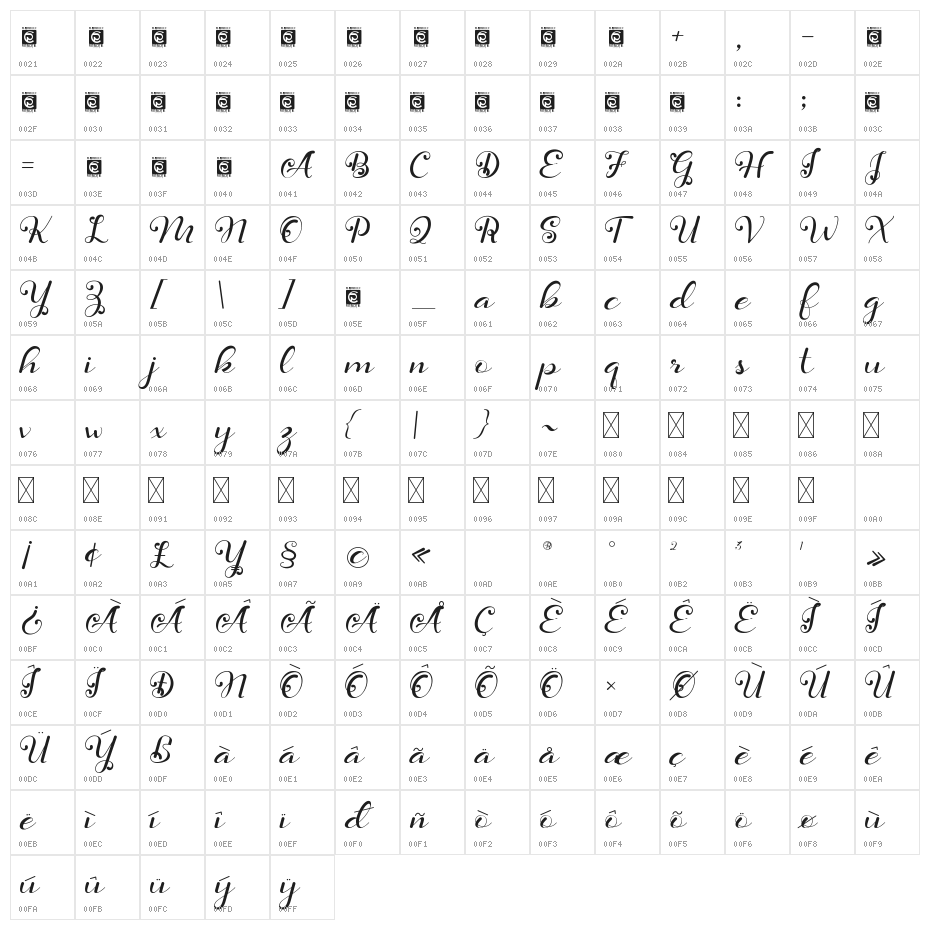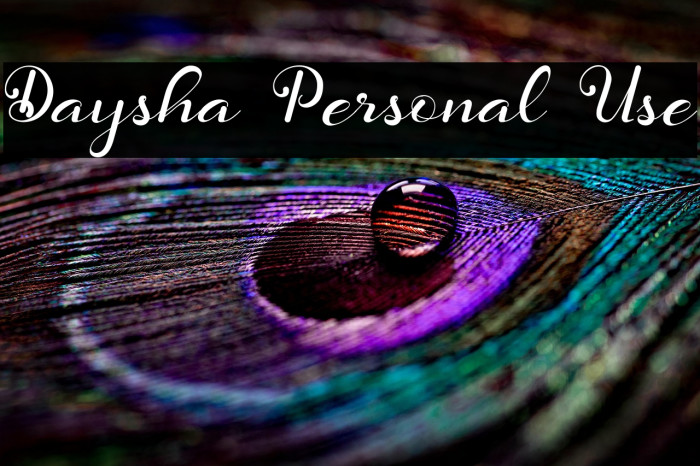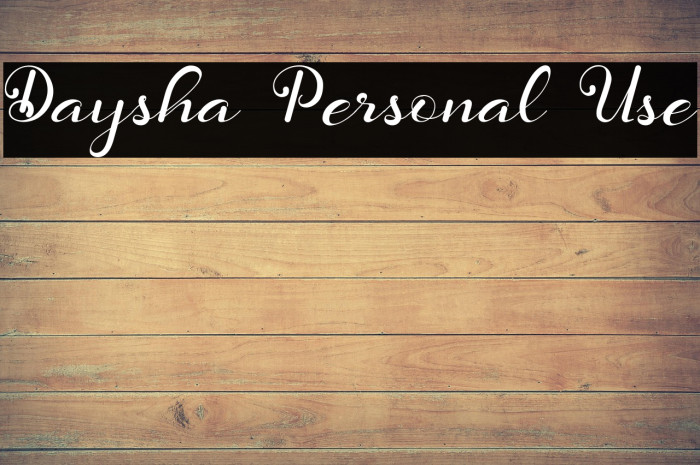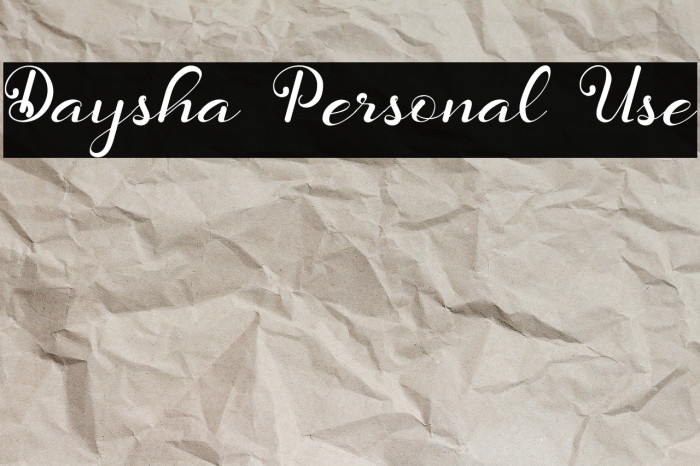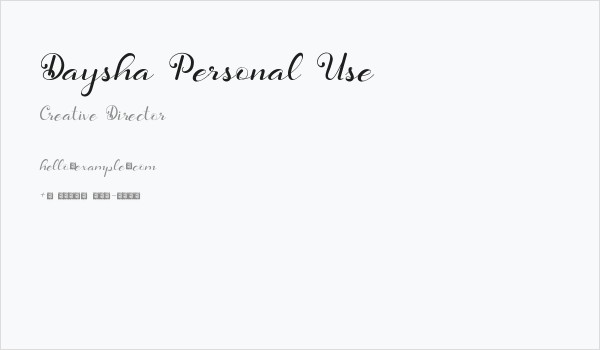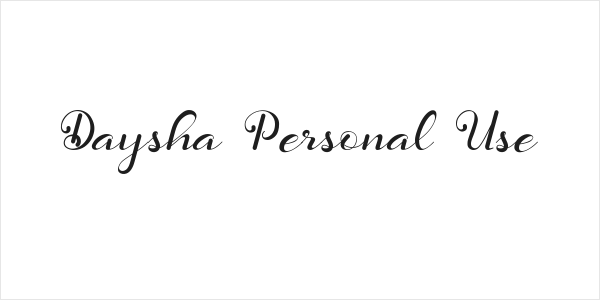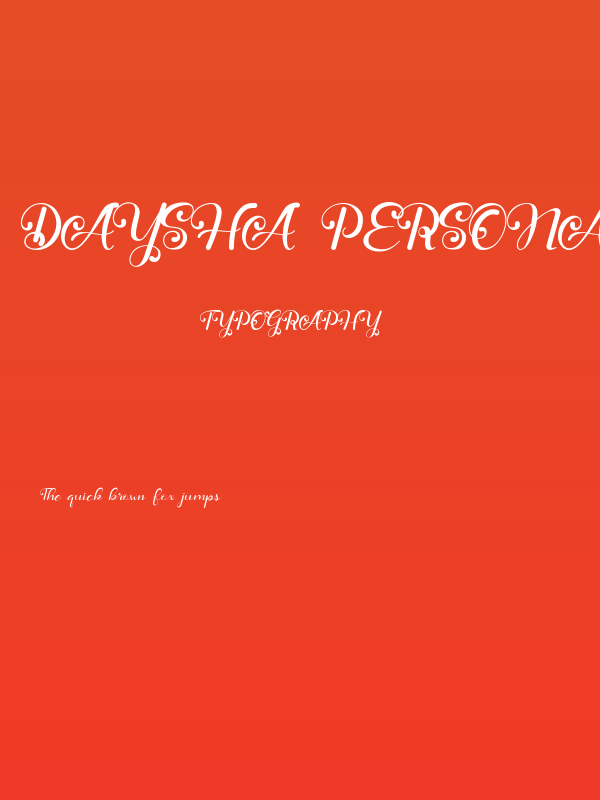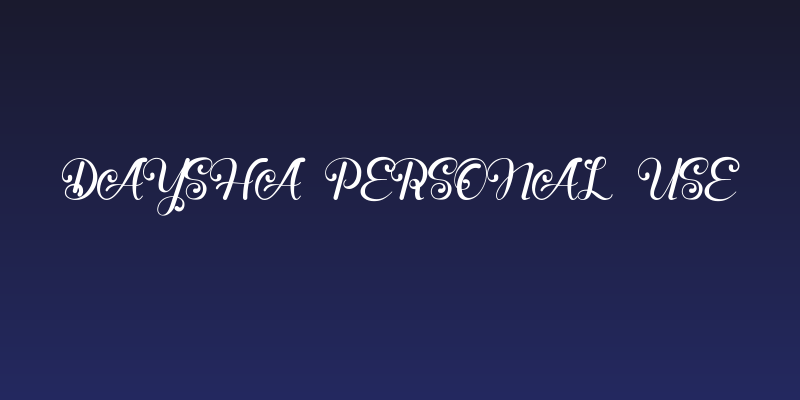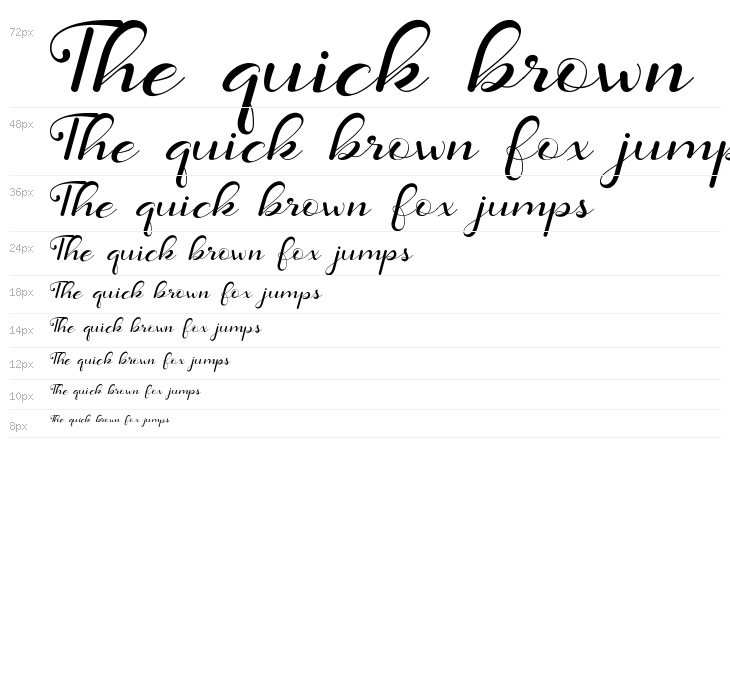
Daysha Personal Use Font
Daysha Personal Use Description
This elegant script font features flowing, interconnected letters with a classic calligraphic style. The uppercase letters are ornate with flourishes, while the lowercase letters maintain a smooth, cursive flow. The font exhibits a high contrast between thick and thin strokes, enhancing its sophisticated appearance. It is well-suited for formal invitations, branding, and decorative purposes. The characters are evenly spaced, ensuring readability despite the intricate design. This font exudes a timeless charm, making it ideal for projects that require a touch of elegance and refinement.
| Proposed Projects | Ideal for wedding invitations, luxury branding, greeting cards, and decorative headings. |